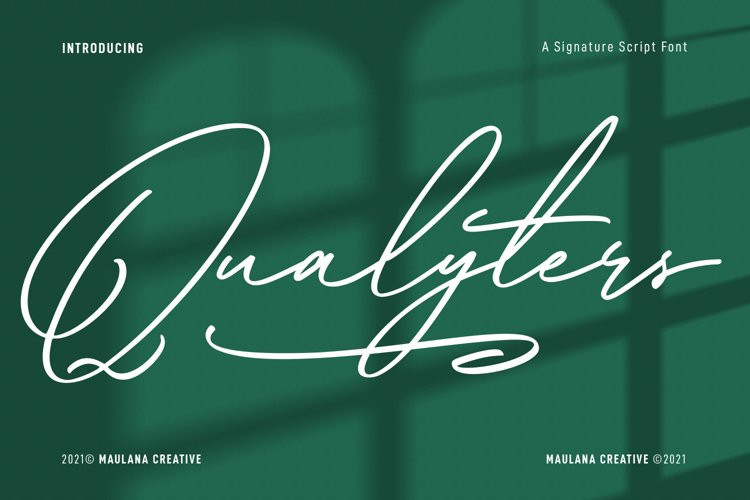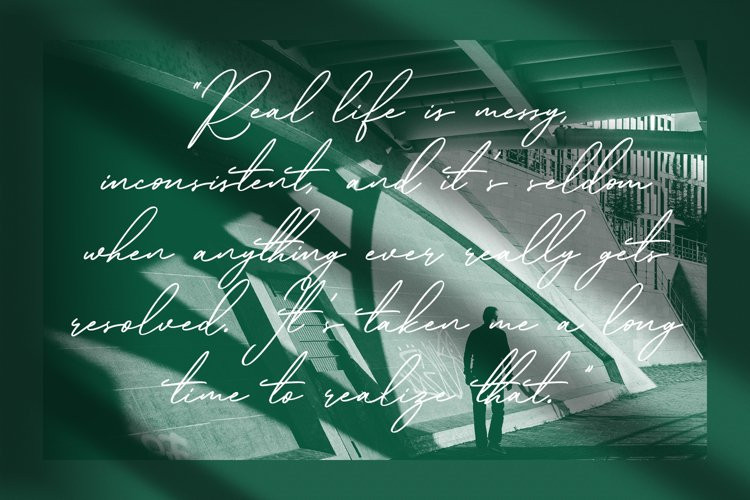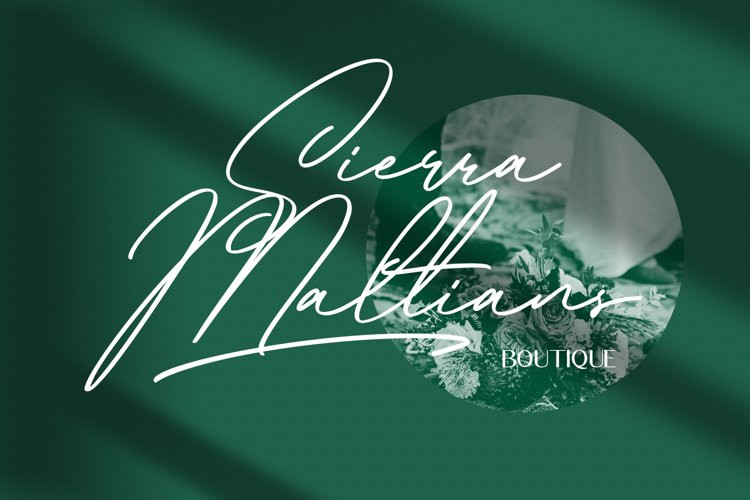
Qualyters Font
Qualyters FontQualyters is a fancy unique signature script font. With clean mono-line stroke, fun character with a bit of ligatures and extra swash. To give you an extra creative work. Qualyters font support multilingual more than 100+ language. This font is good for logo design, Social media, Movie Titles, Books Titles, a short text even a long text letter and good for your secondary text font with sans or serif. Make a stunning work with Qualyters font.